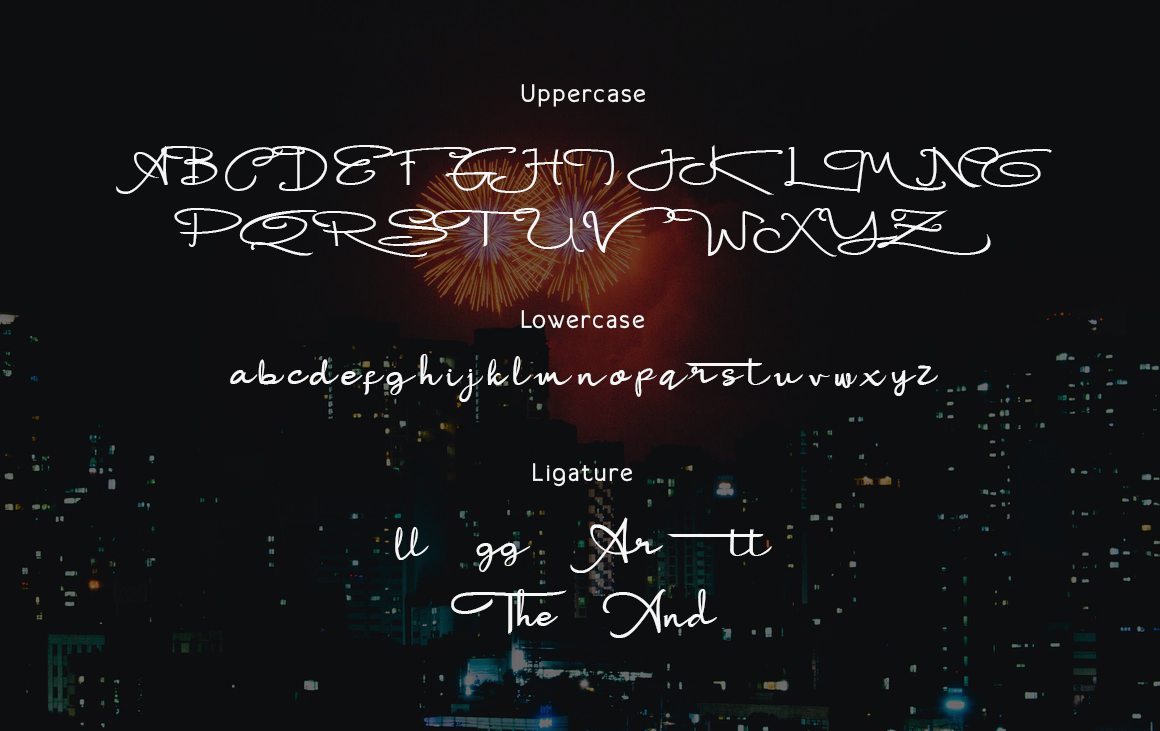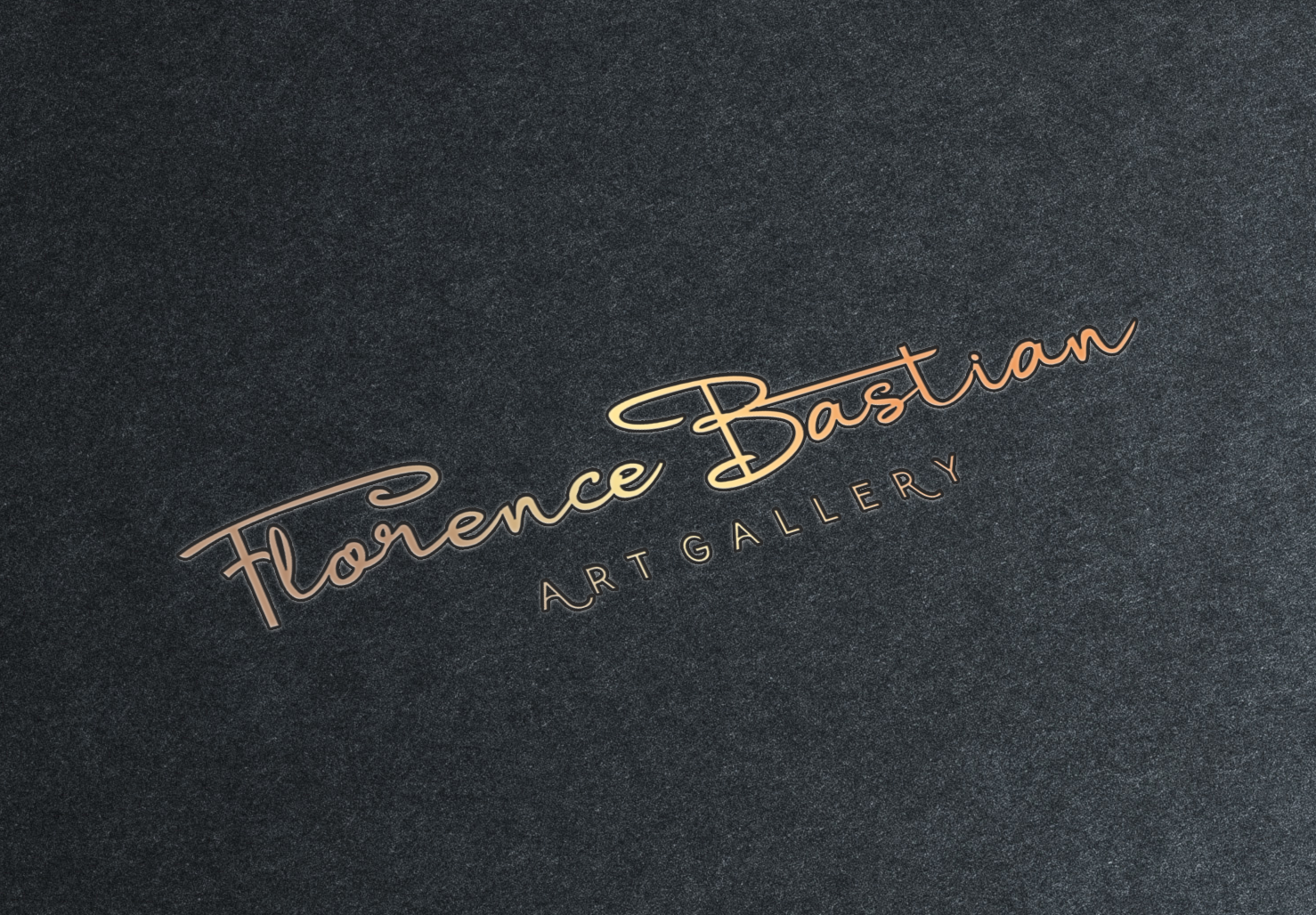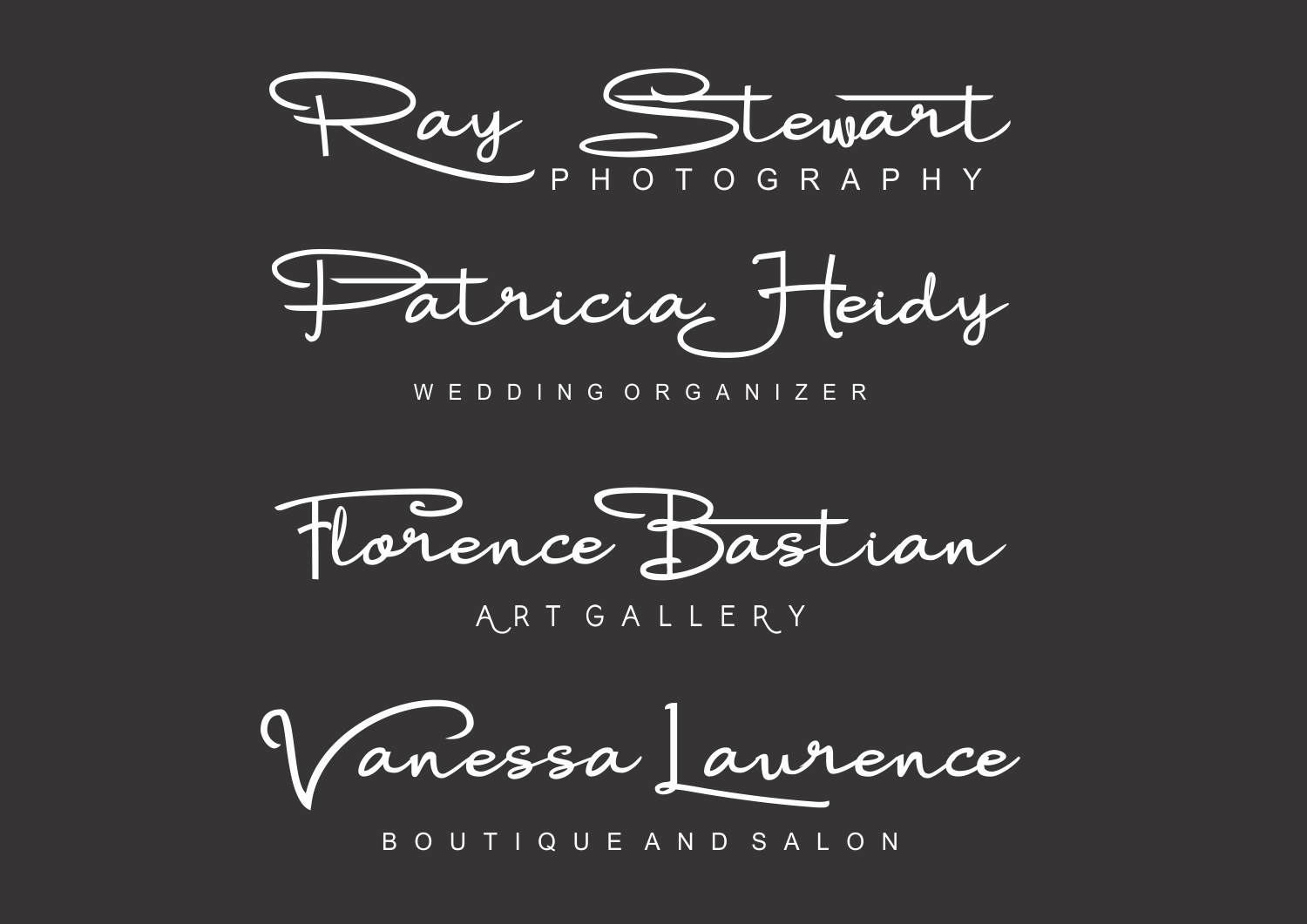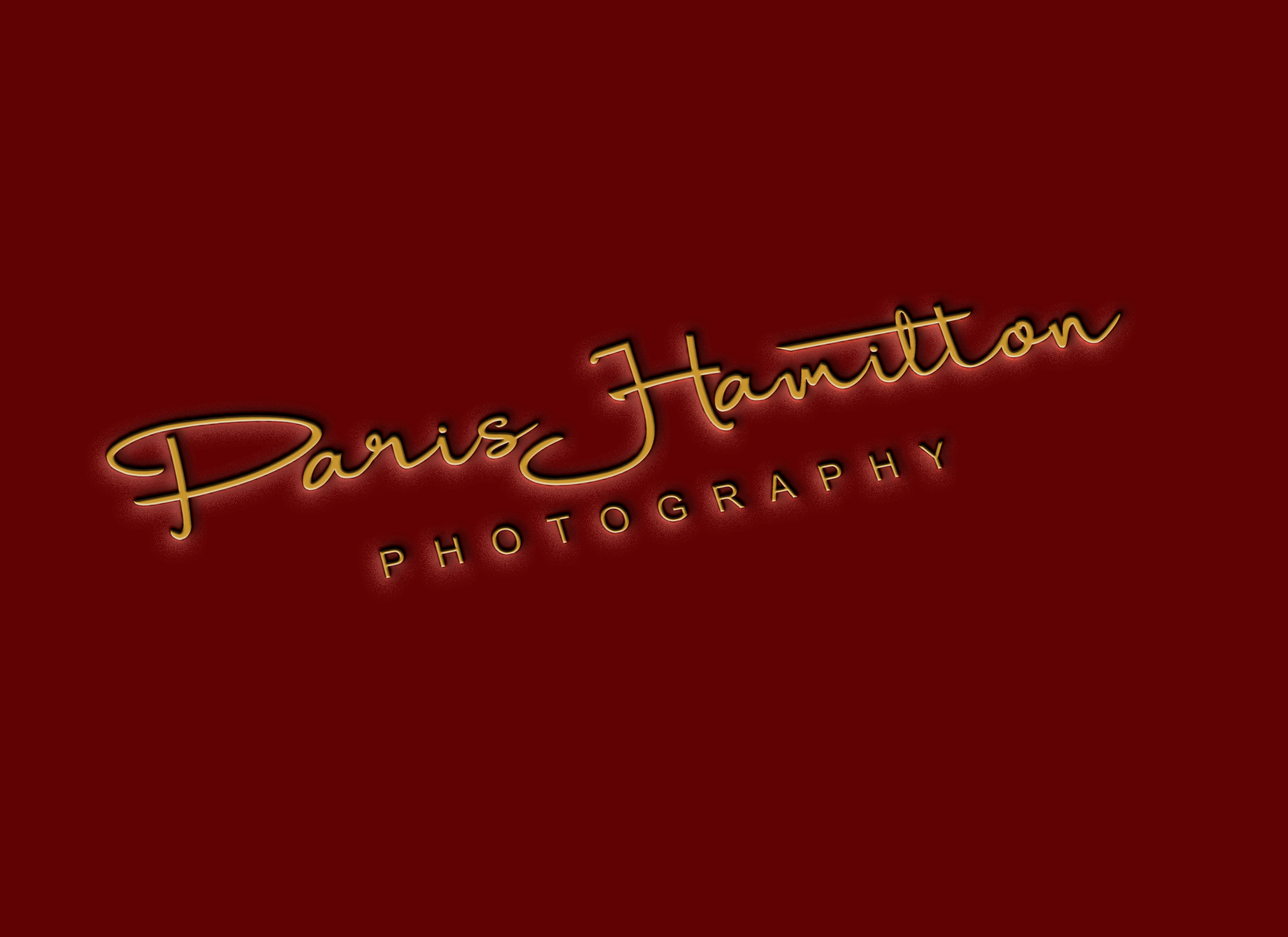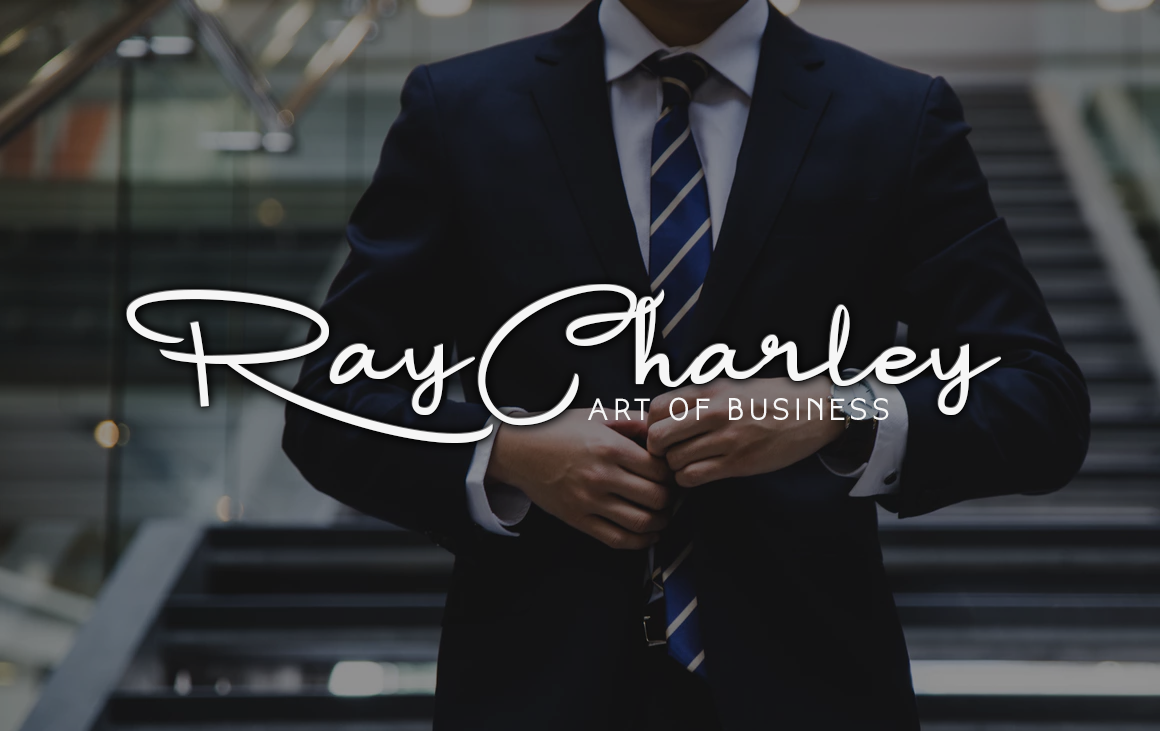
Rayden Stone Font
About Rayden Stone Font
Rayden Stone is a beautiful, signature font with a handwritten appeal. This font was crafted to look elegant, classy, and easy to read. Use for signature logo designs and more.